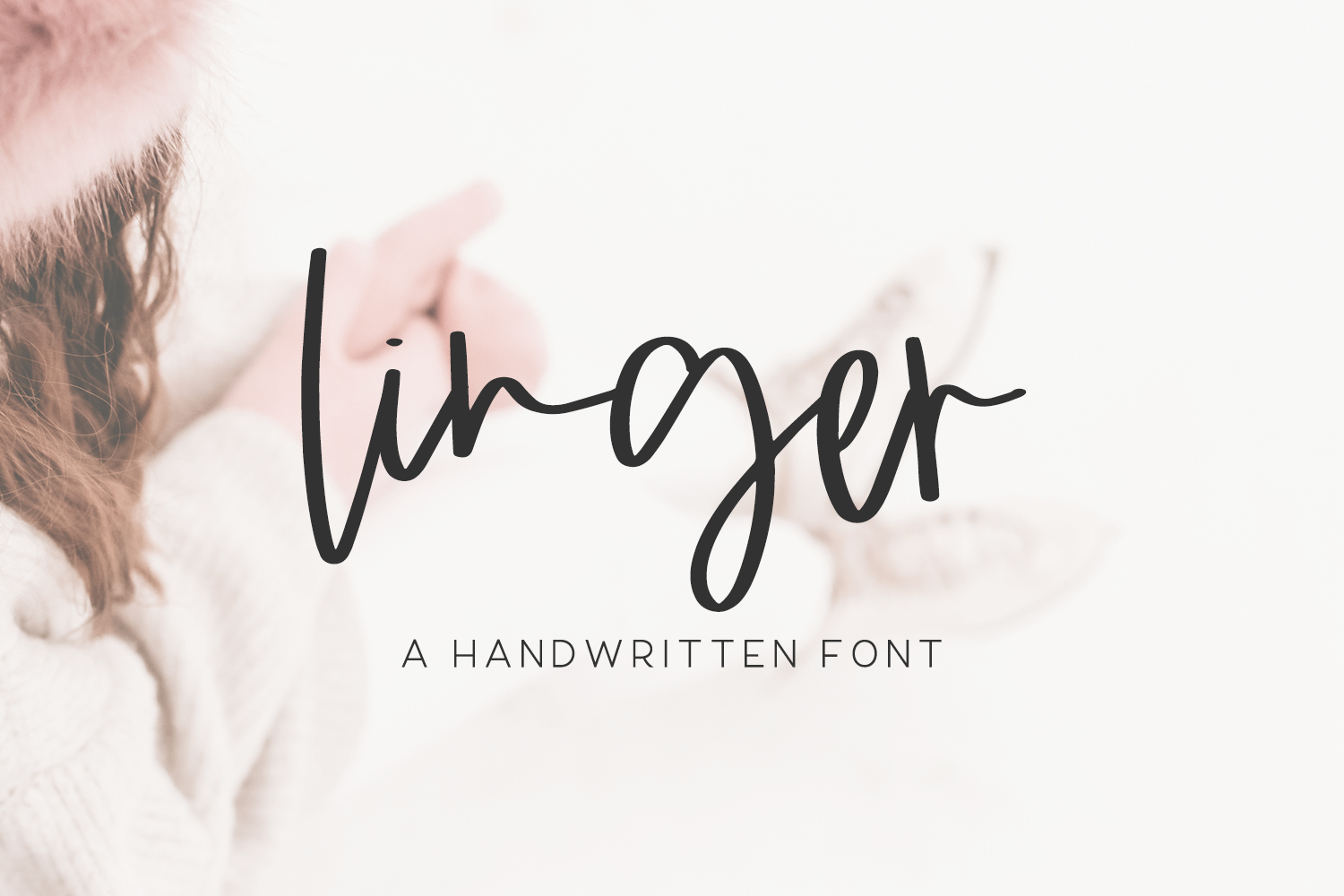
Introducing Linger Script, a messy handwritten font.
Linger Script is best for:
- website design + website accents - think travel blogs, fashion blogs, & more
- social media graphics